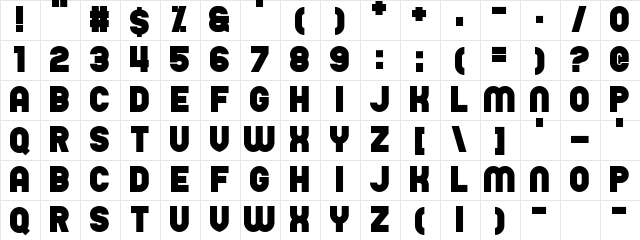
Unability Regular Free Font
Unability Regular
Designer: NAL
Design Context for Unability
Unability is a composed and adaptable typeface that performs quietly and consistently across a wide range of design contexts.
Pro Tip: Use Unability in both headline and body roles to test its range before committing to a single application.